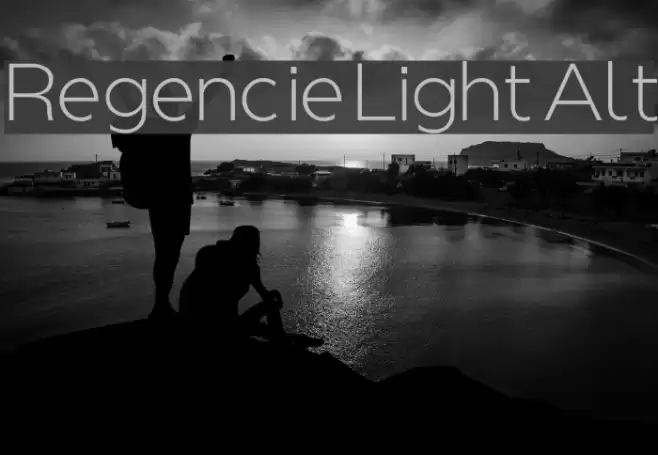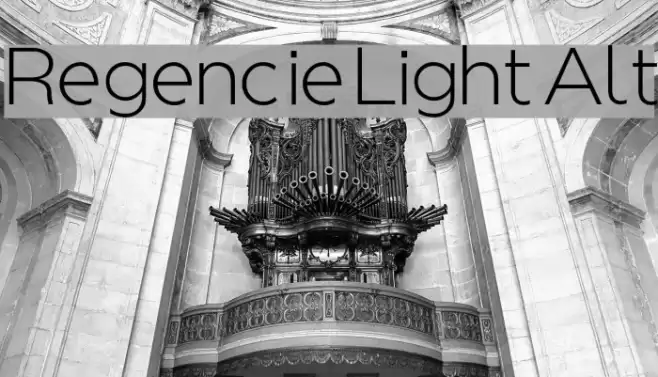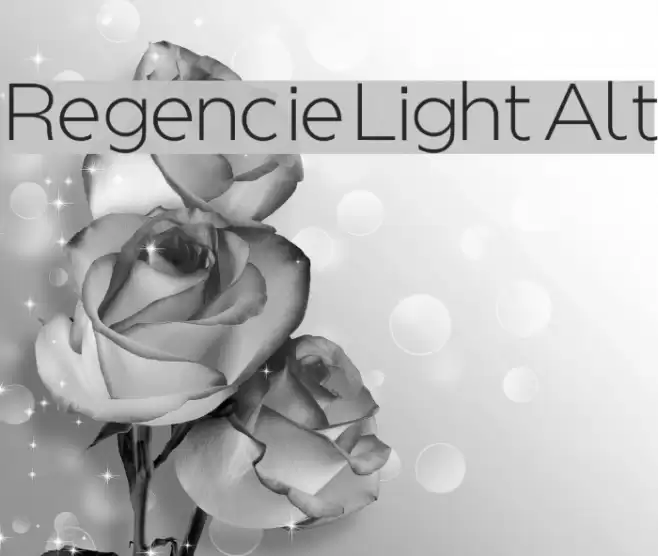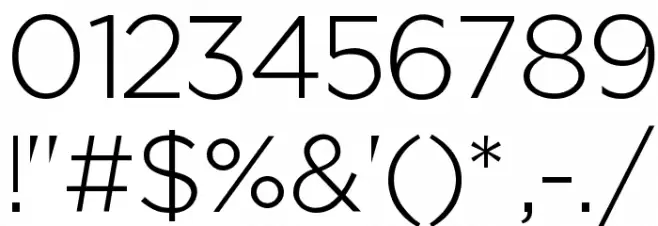
Regencie Light Alt Font
Regencie Light Alt Description
This font is a sleek and modern sans-serif typeface characterized by its clean lines and minimalistic design. The letters are evenly spaced with a consistent stroke width, giving it a uniform appearance. The uppercase and lowercase letters are well-proportioned, and the numerals are clear and legible. Special characters are included, maintaining the same aesthetic as the alphabet. Its simplicity and elegance make it versatile for various design applications.
A modern, clean sans-serif font with uniform stroke width from Uncategorized fonts.
- Proposed Projects: Ideal for branding, web design, and editorial projects where a clean and modern look is desired.